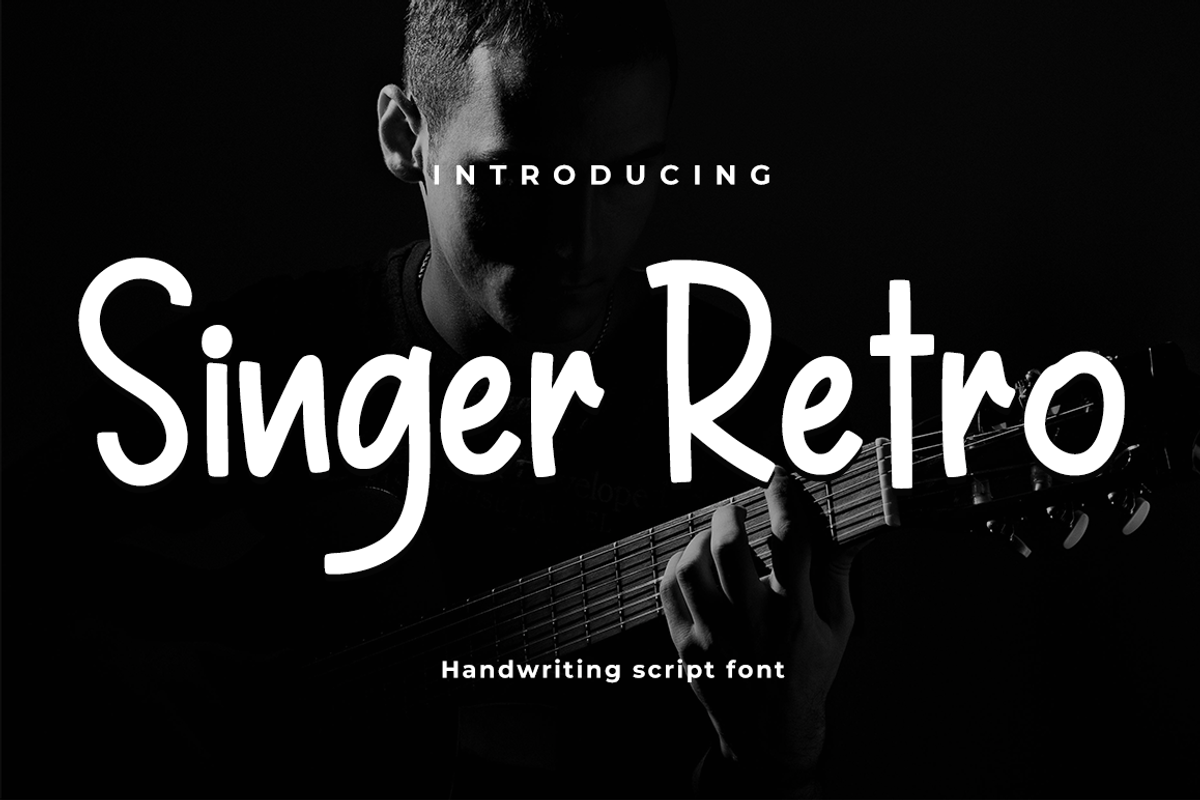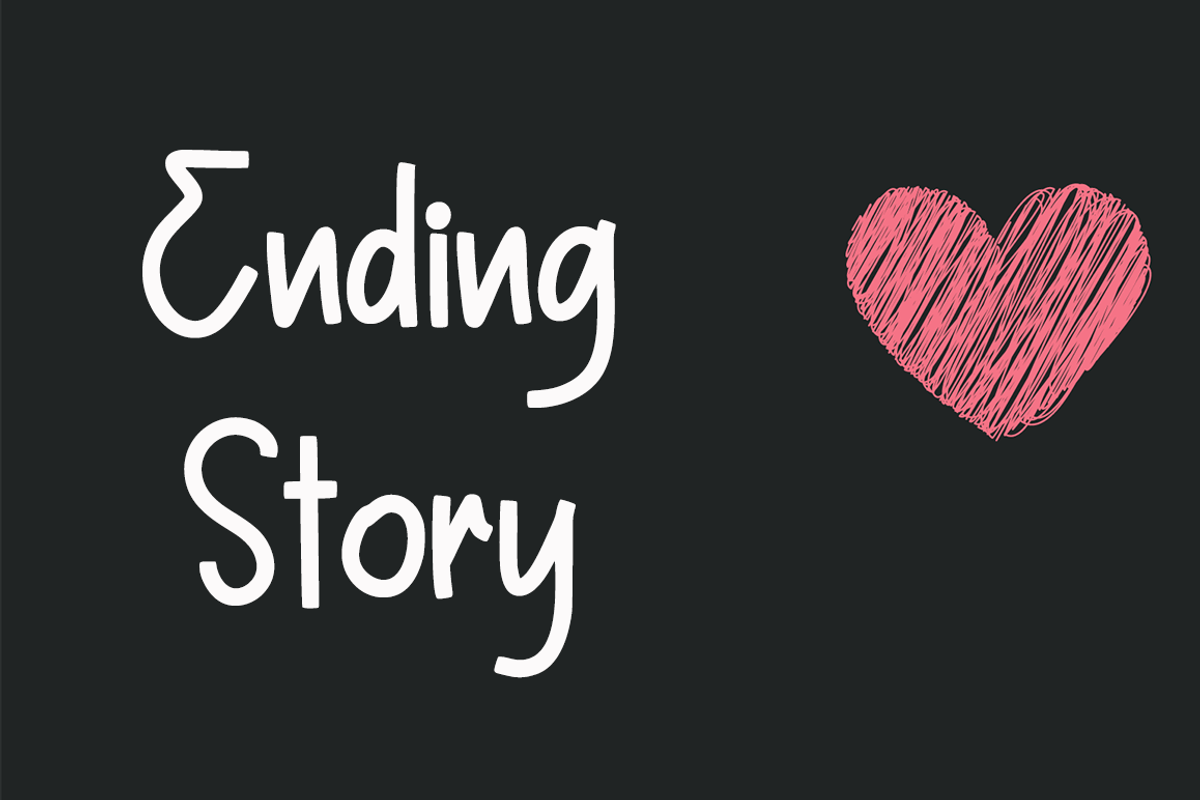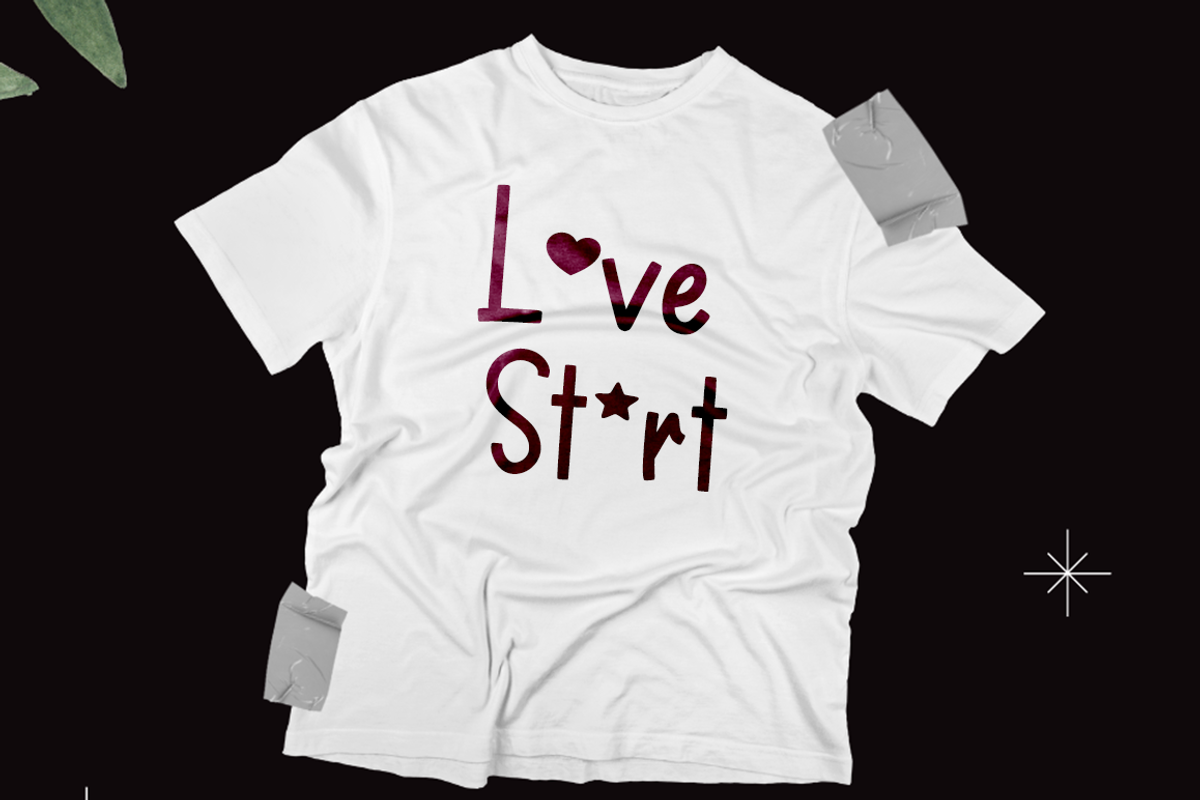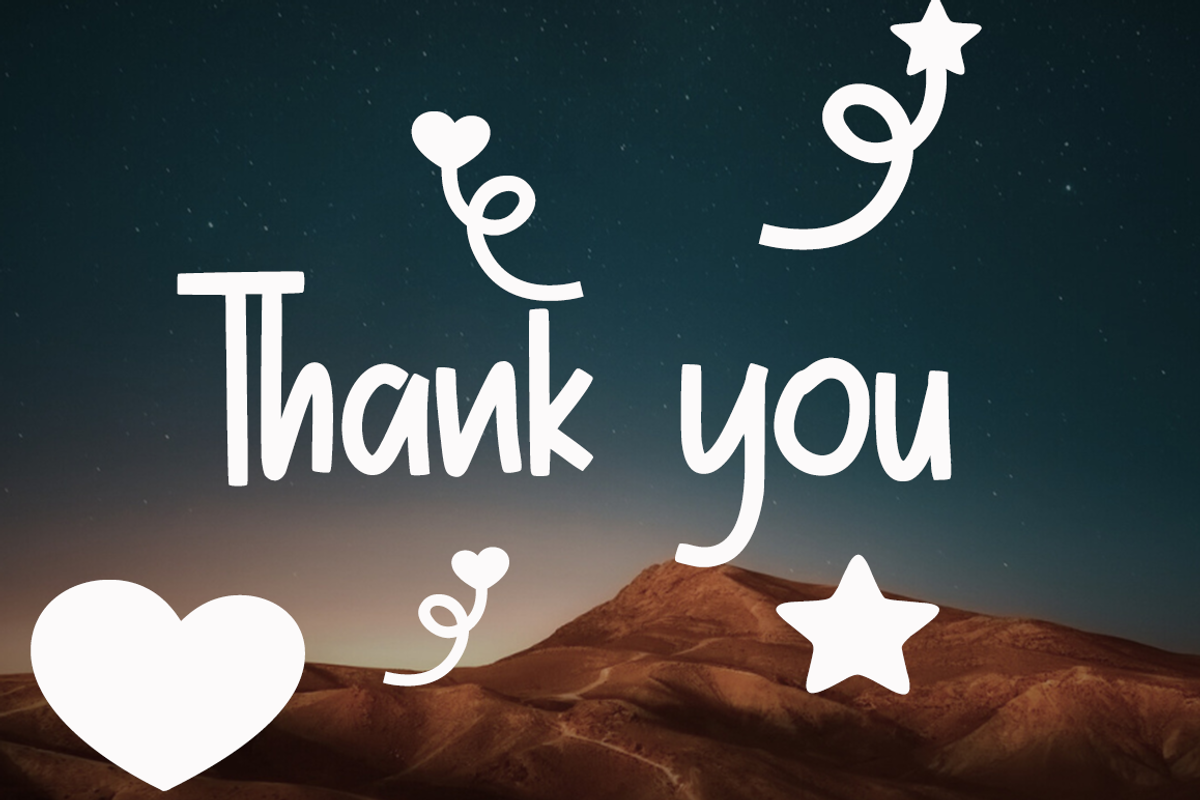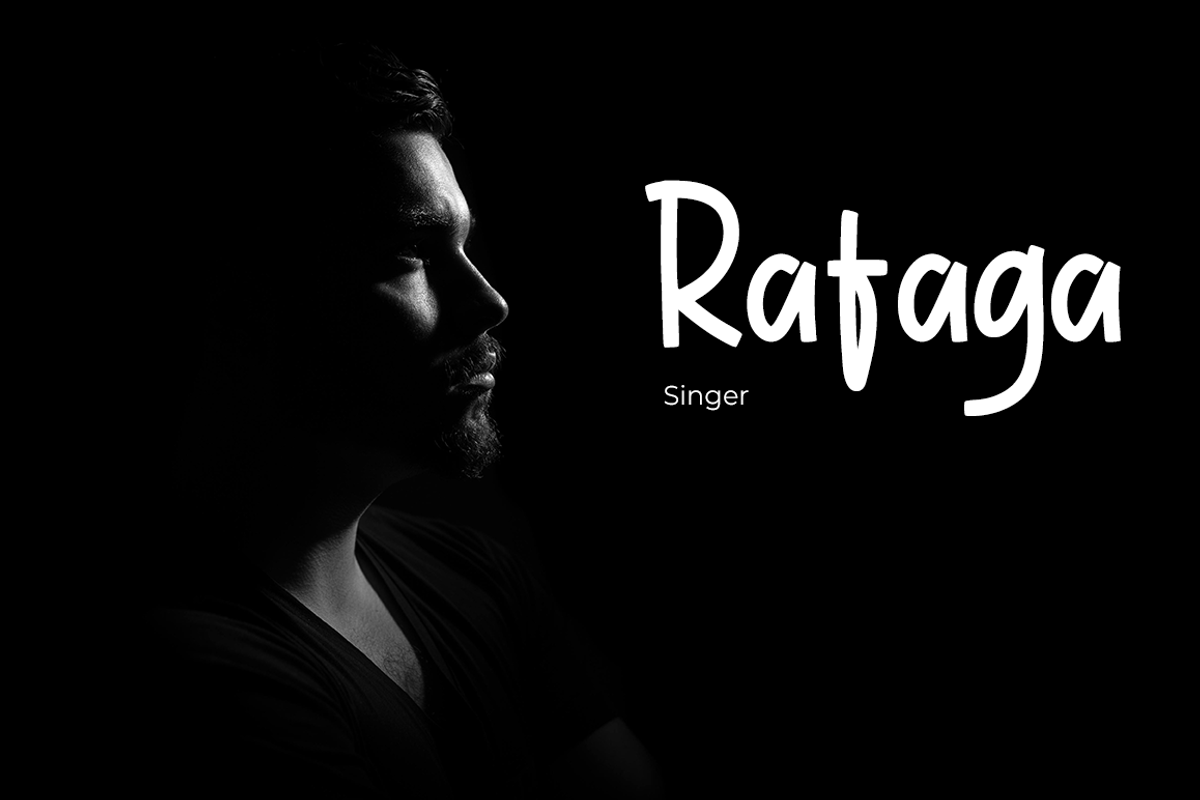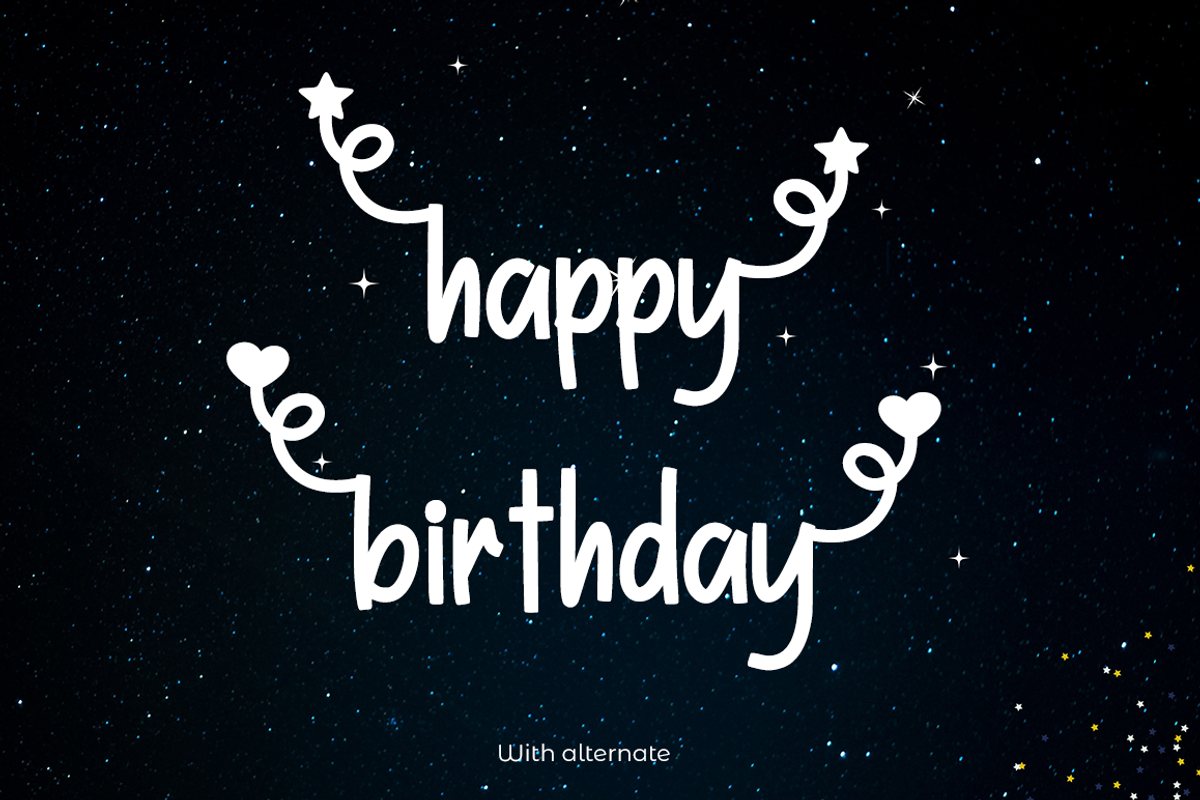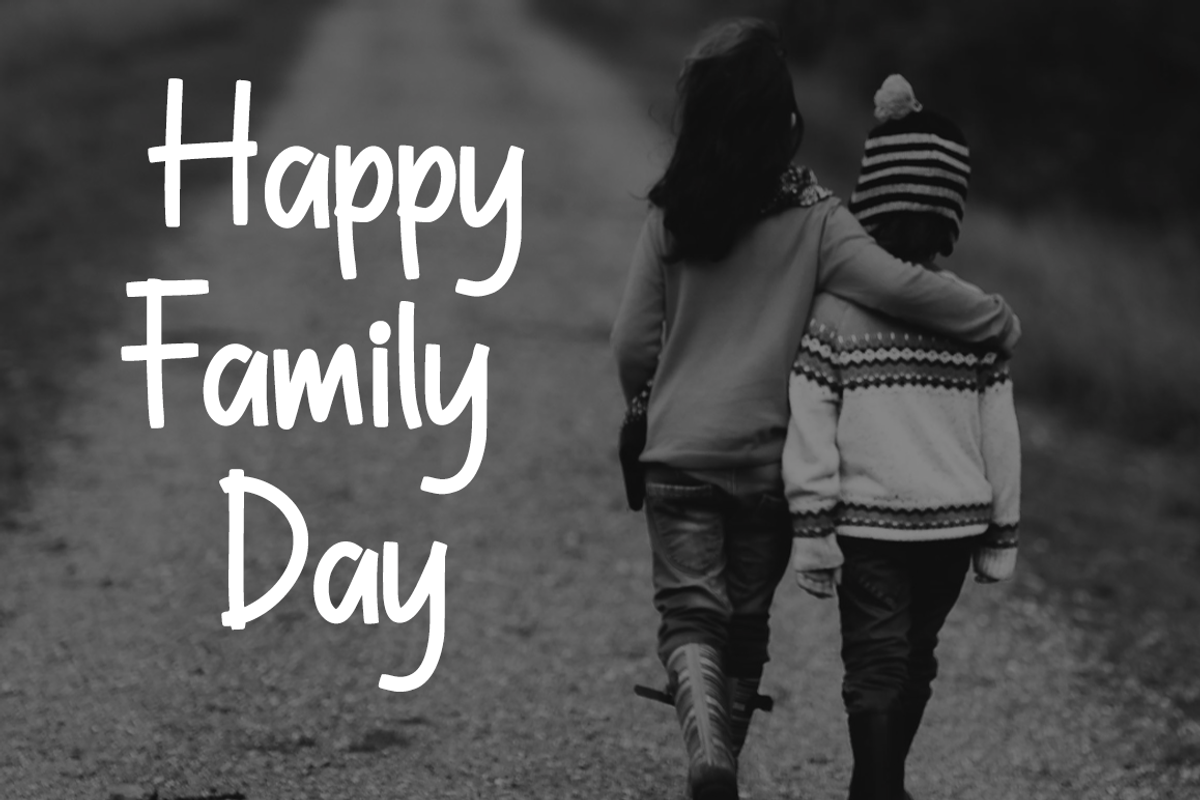
Singer Retro
Unleash the vintage charm with Singer Retro, your next favorite natural handwritten font. Immerse yourself in simplicity that inspires elegance, making it a sublime choice for logos you adore, the invitations you'd love sending, and stationery worth showing off. With its unique touch, it beautifully, yet subtly, enhances wedding designs, making them more personal and memorable. Singer Retro doesn't stop there - consider your social media posts amplified, your advertisements more appealing, and your product packaging irresistibly attention-grabbing. Whether you want standout labels or watermarked photography, Singer Retro elevates the artsy charm in your works. Bring your special events or any creative projects to life with this timeless handwritten font.